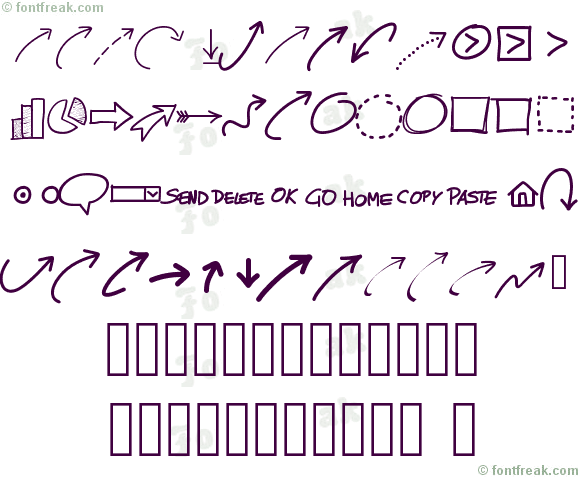
PWNewArrows
About PWNewArrows
PWNewArrows is a unique dingbat font designed by Peax Webdesign, ideal for those looking to add a touch of creativity to their projects. This font is classified under the dingbats category, featuring a variety of arrow symbols that cater to modern design needs. The visual characteristics of PWNewArrows include a playful and hand-drawn style, with varying stroke weights that give each symbol a dynamic and informal feel. The spacing is thoughtfully crafted, allowing for easy integration into various layouts without overwhelming the surrounding text.
This font is particularly useful in several specific applications. It can enhance user interfaces by providing intuitive directional cues, making it perfect for mobile app designs and web pages. Additionally, PWNewArrows is an excellent choice for creating engaging infographics, as the arrows can effectively guide viewers through information. Graphic designers can also utilize it for marketing materials that require a friendly touch, such as flyers and brochures. Moreover, small business owners can incorporate these arrows in their promotional content to draw attention to important features or calls to action.
Targeting graphic designers, small business owners, and content creators, PWNewArrows encourages creativity and innovation. Its freeware license makes it accessible for anyone looking to elevate their visual storytelling without the burden of licensing fees.
What sets the PWNewArrows font apart is its ability to blend functionality with a whimsical flair. The hand-drawn aesthetic brings a personal touch to digital and print projects alike, making it a versatile addition to any designer's toolkit. For those interested, the PWNewArrows font free download offers an opportunity to experiment with these distinctive symbols and enhance their creative endeavors.